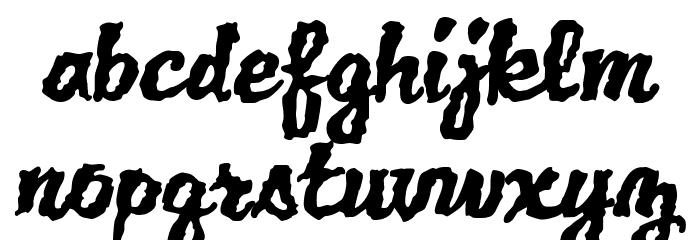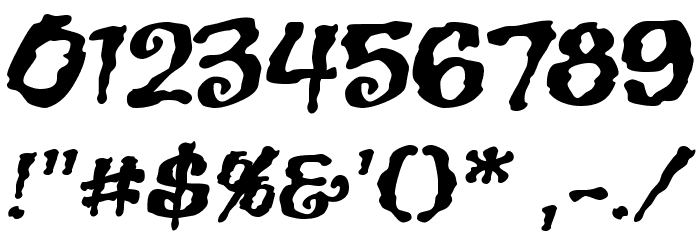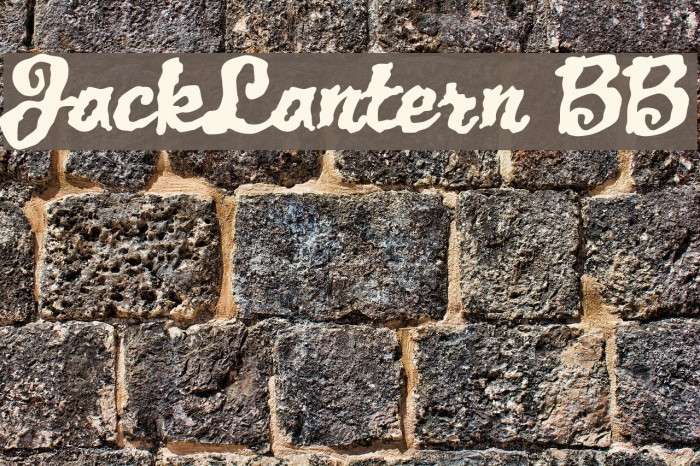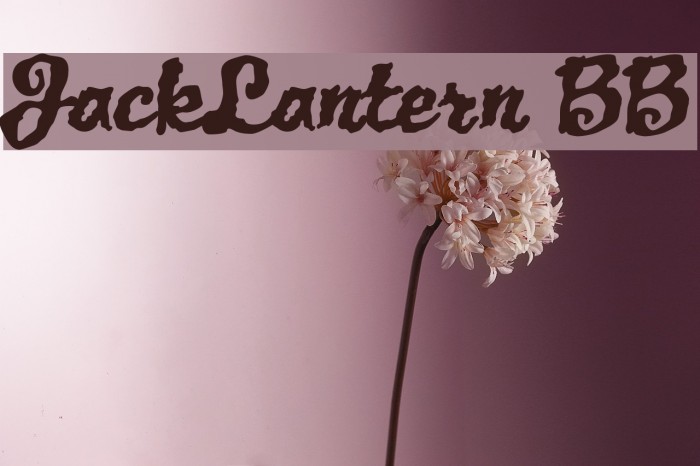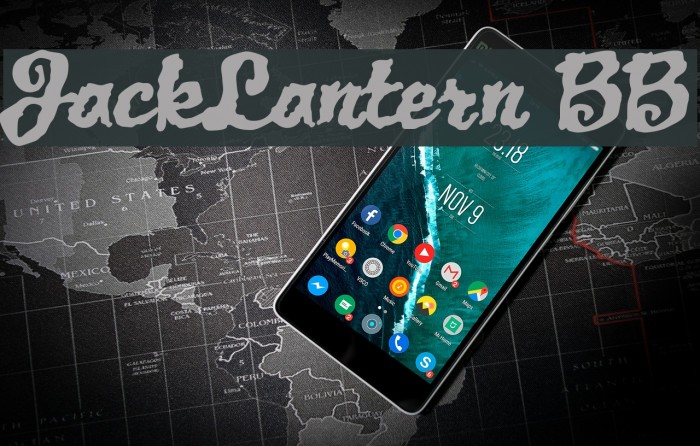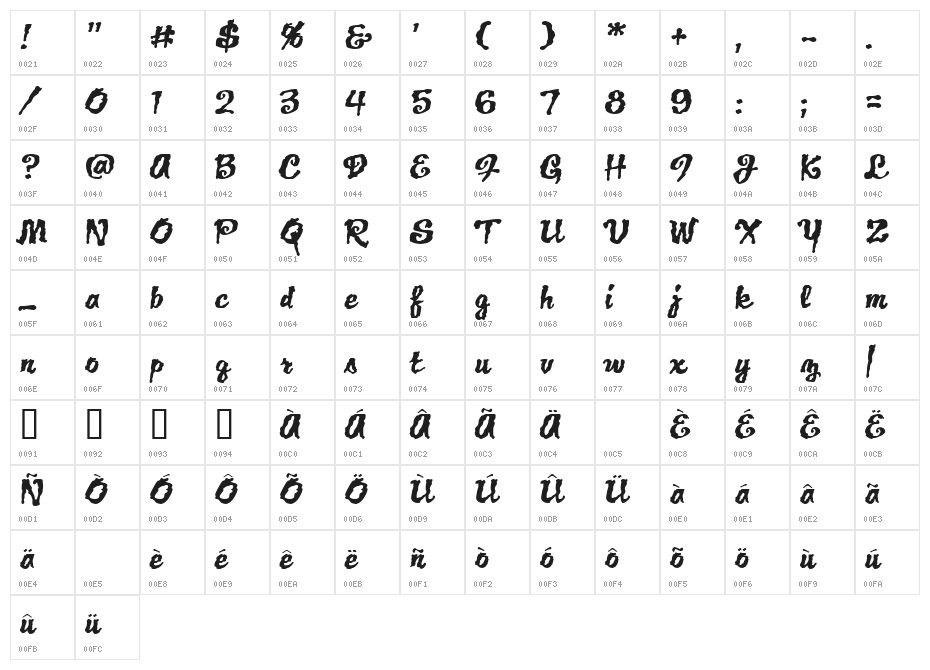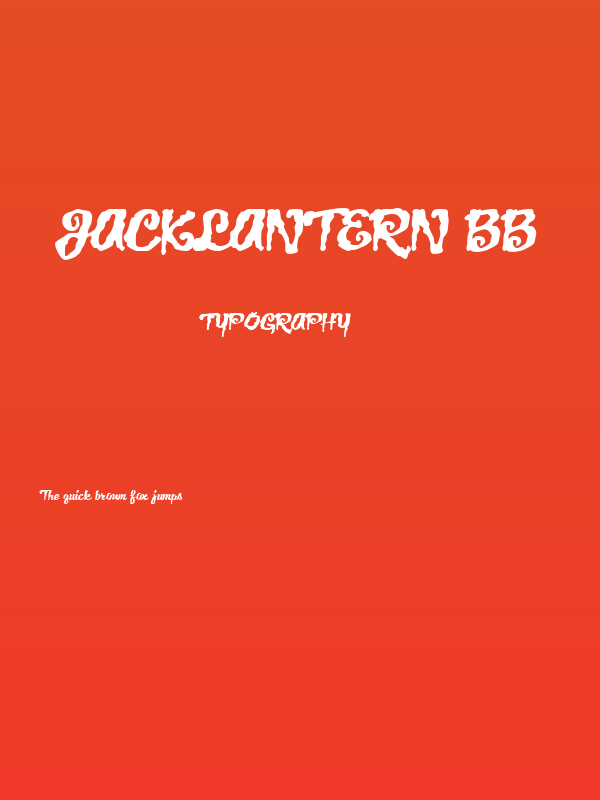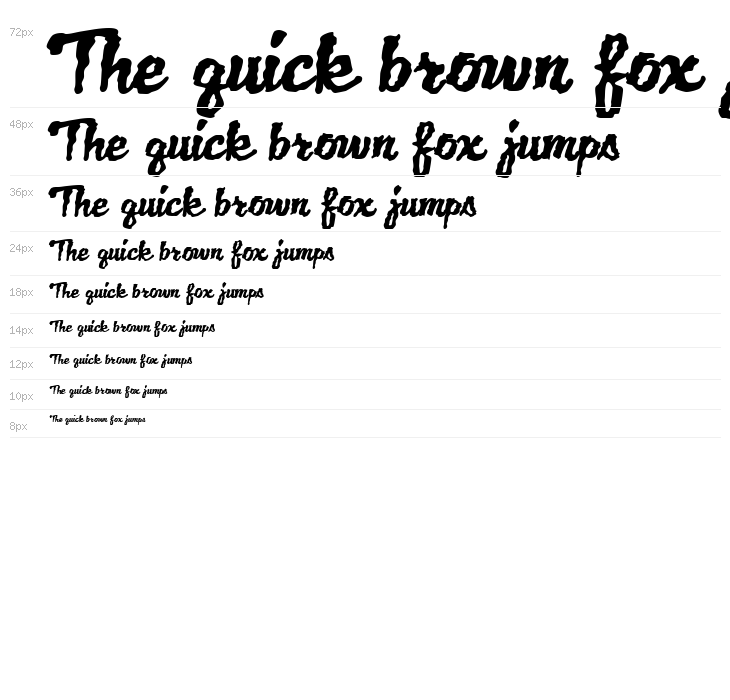
JackLantern BB Font
This font exudes a spooky and playful vibe, reminiscent of Halloween themes. The characters are bold and have a jagged, uneven edge that mimics the look of carved pumpkins or dripping ink. The uppercase and lowercase letters maintain a consistent style, with exaggerated curves and sharp angles that give them a dynamic and energetic appearance. The numbers and special characters follow the same aesthetic, ensuring a cohesive look across all text. This font is perfect for creating eye-catching headlines or themed designs that require a touch of whimsy and eeriness.
A spooky, playful font with jagged edges and a Halloween theme.
- Font: JackLantern BB
- Proposed Projects: Ideal for Halloween-themed posters, party invitations, horror movie titles, and decorative signage.
- Use Case: Headlines, Logos, Themed Events